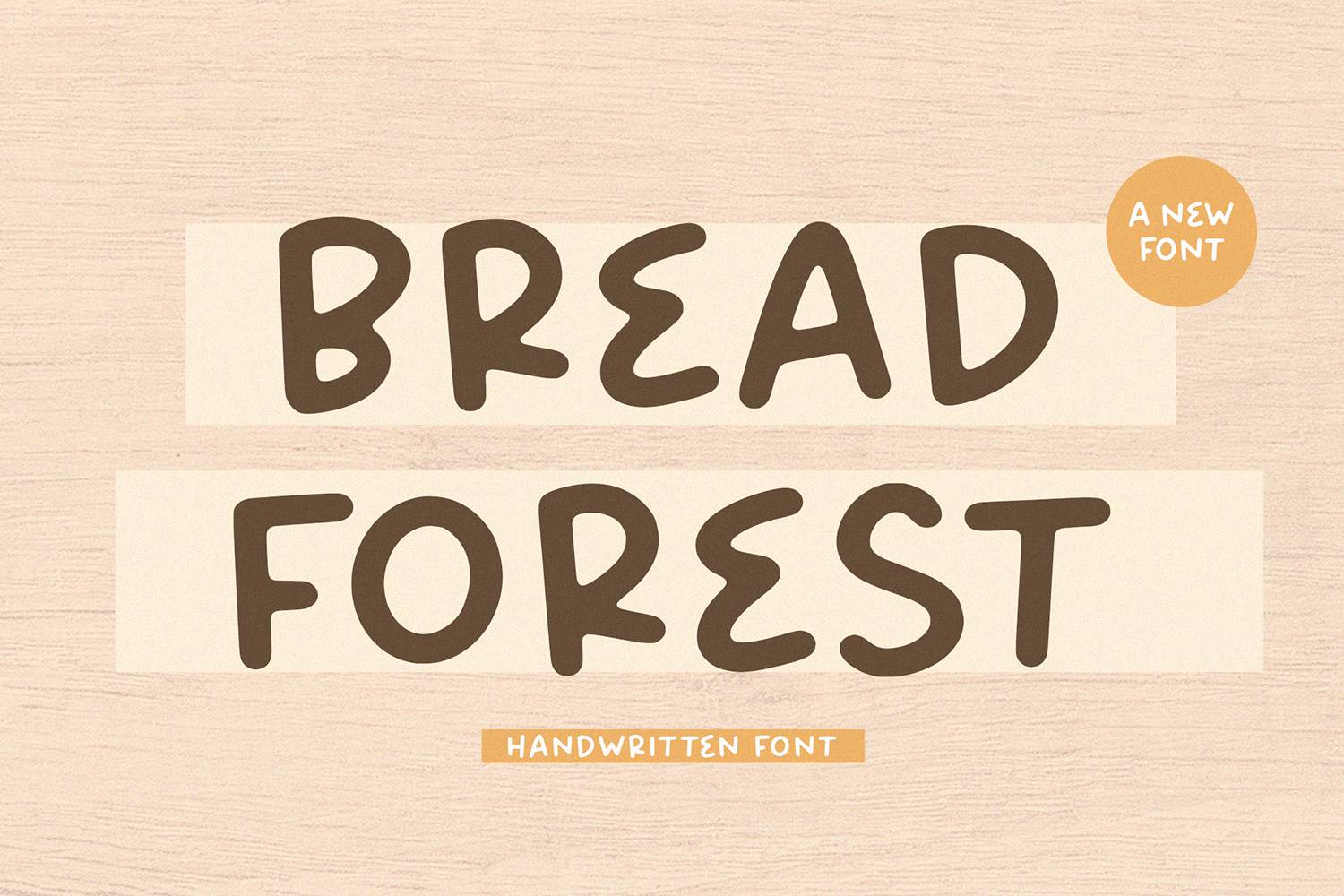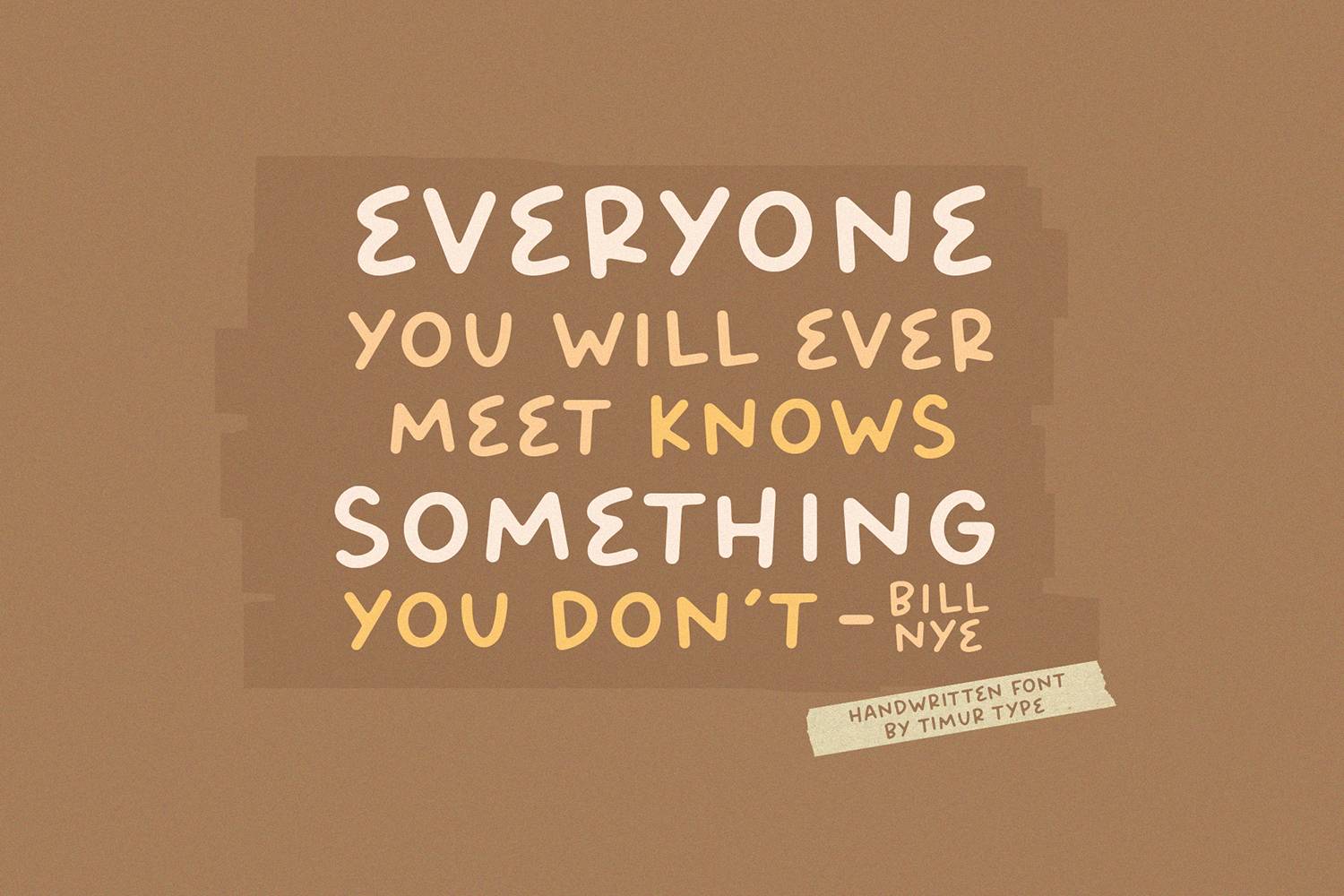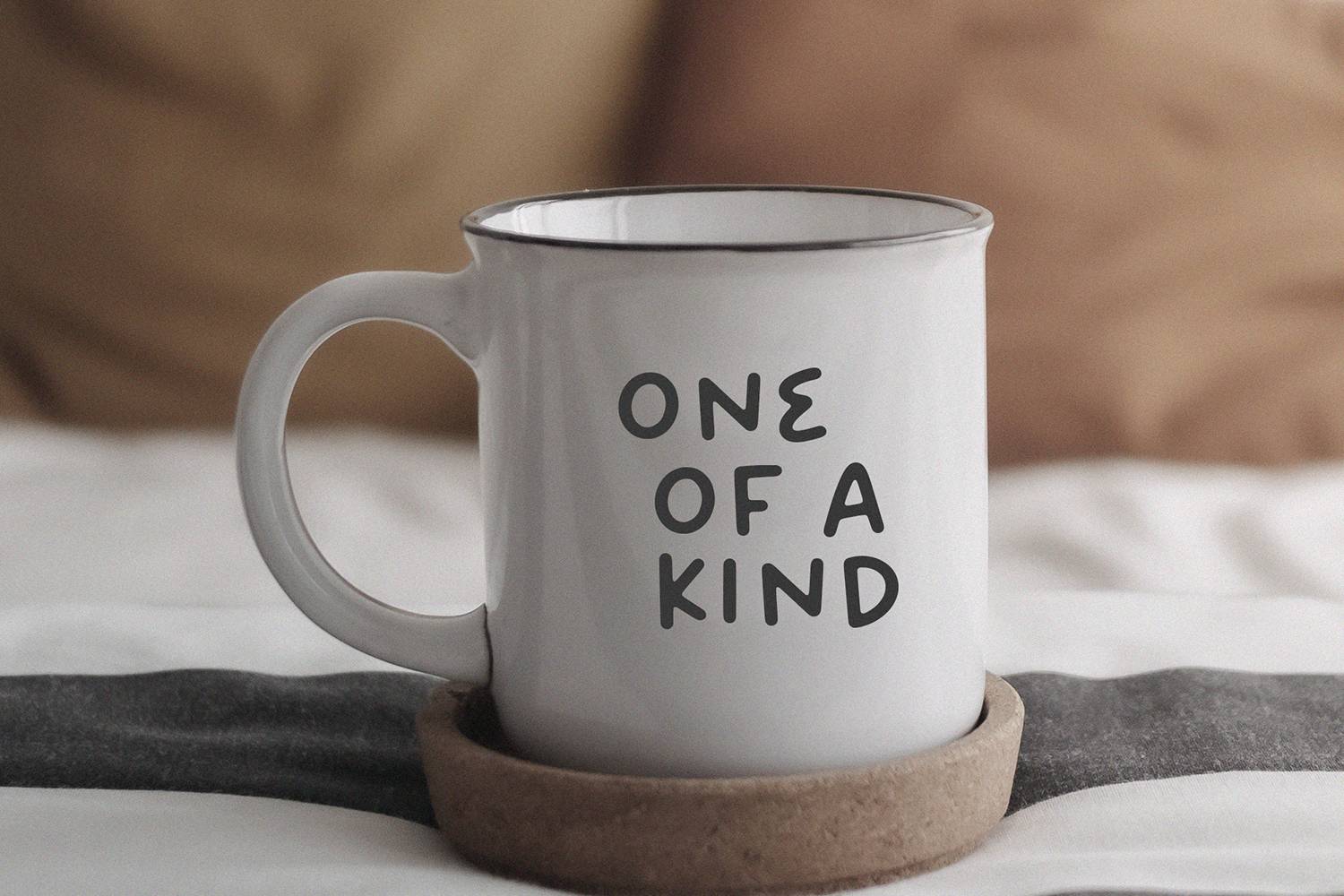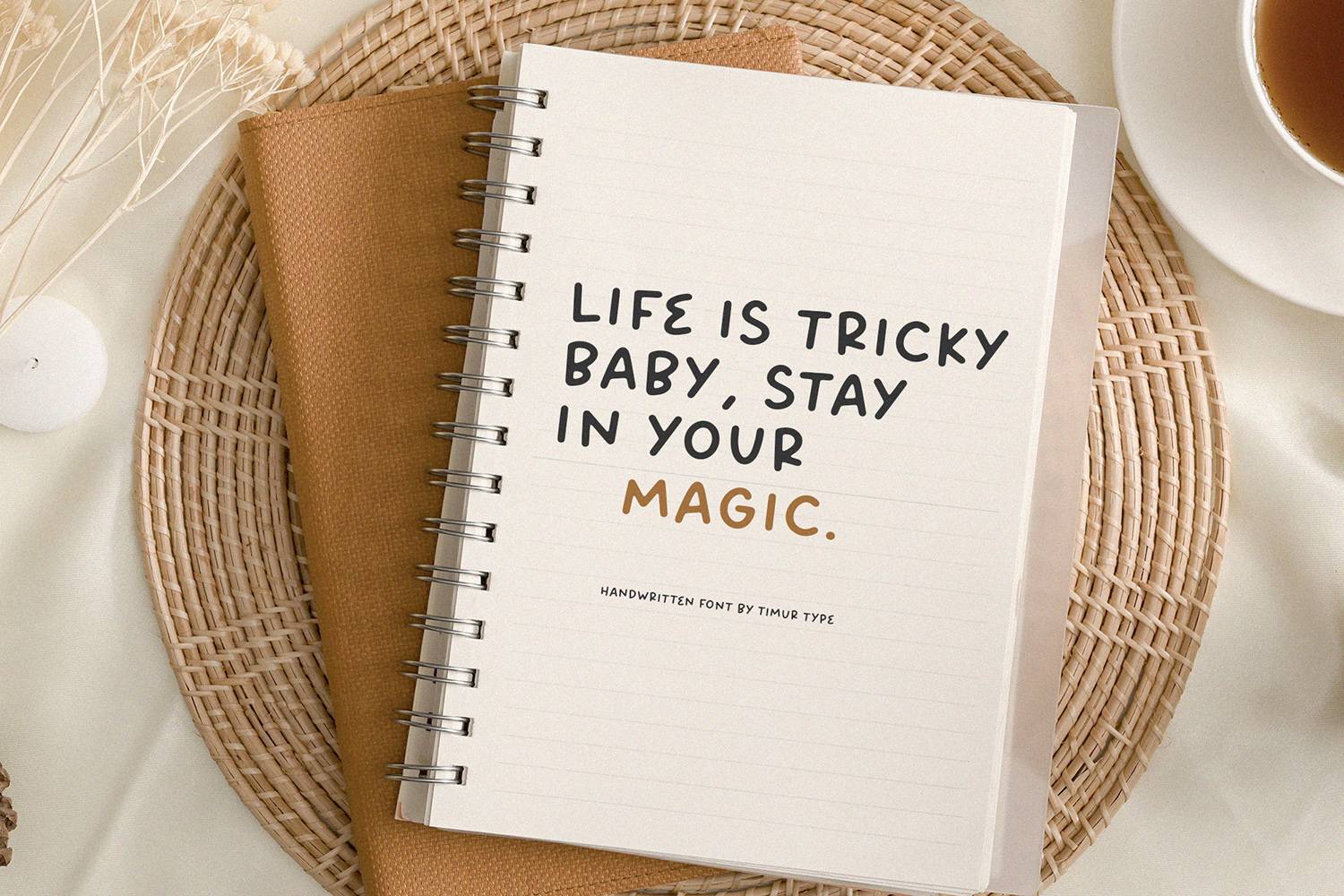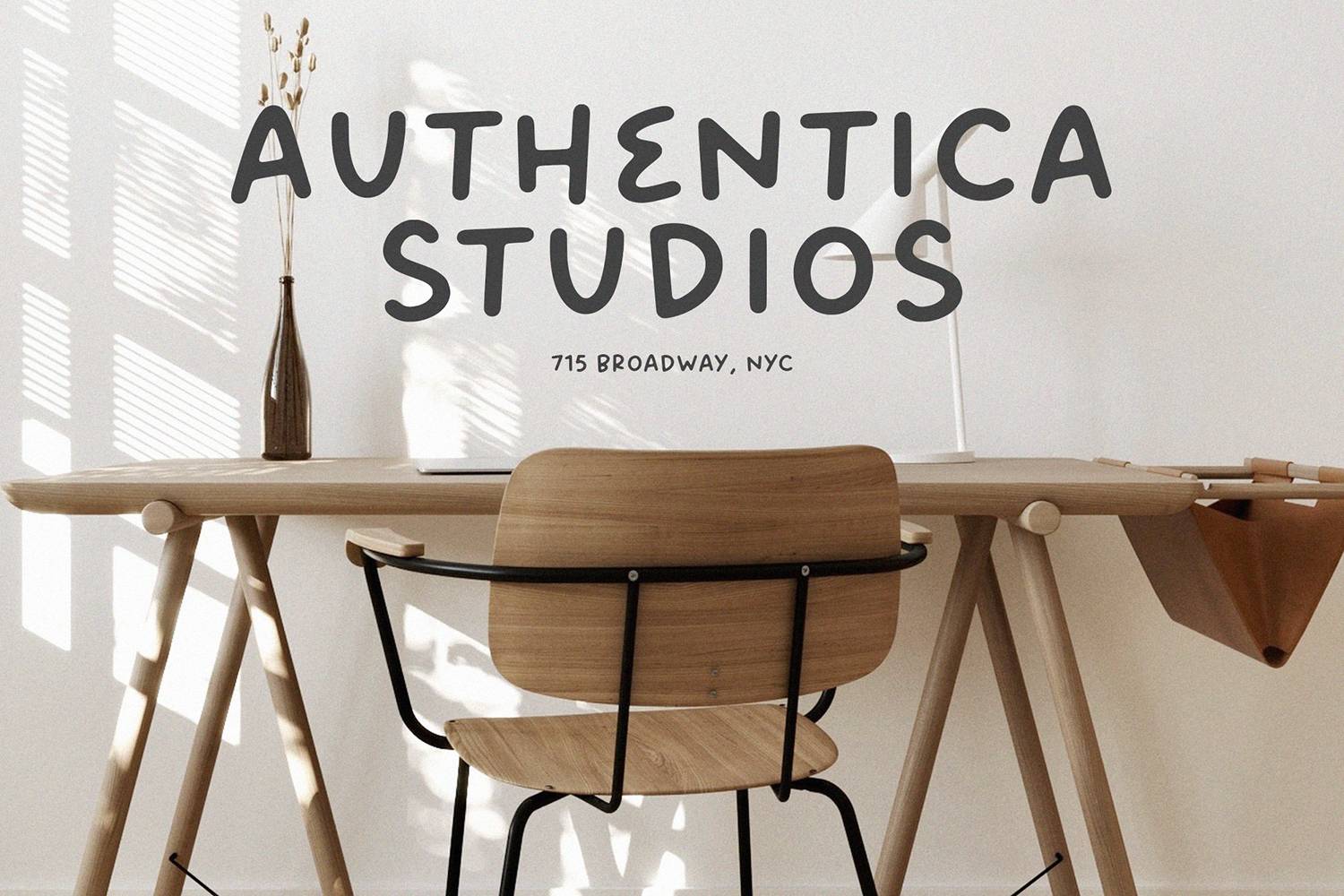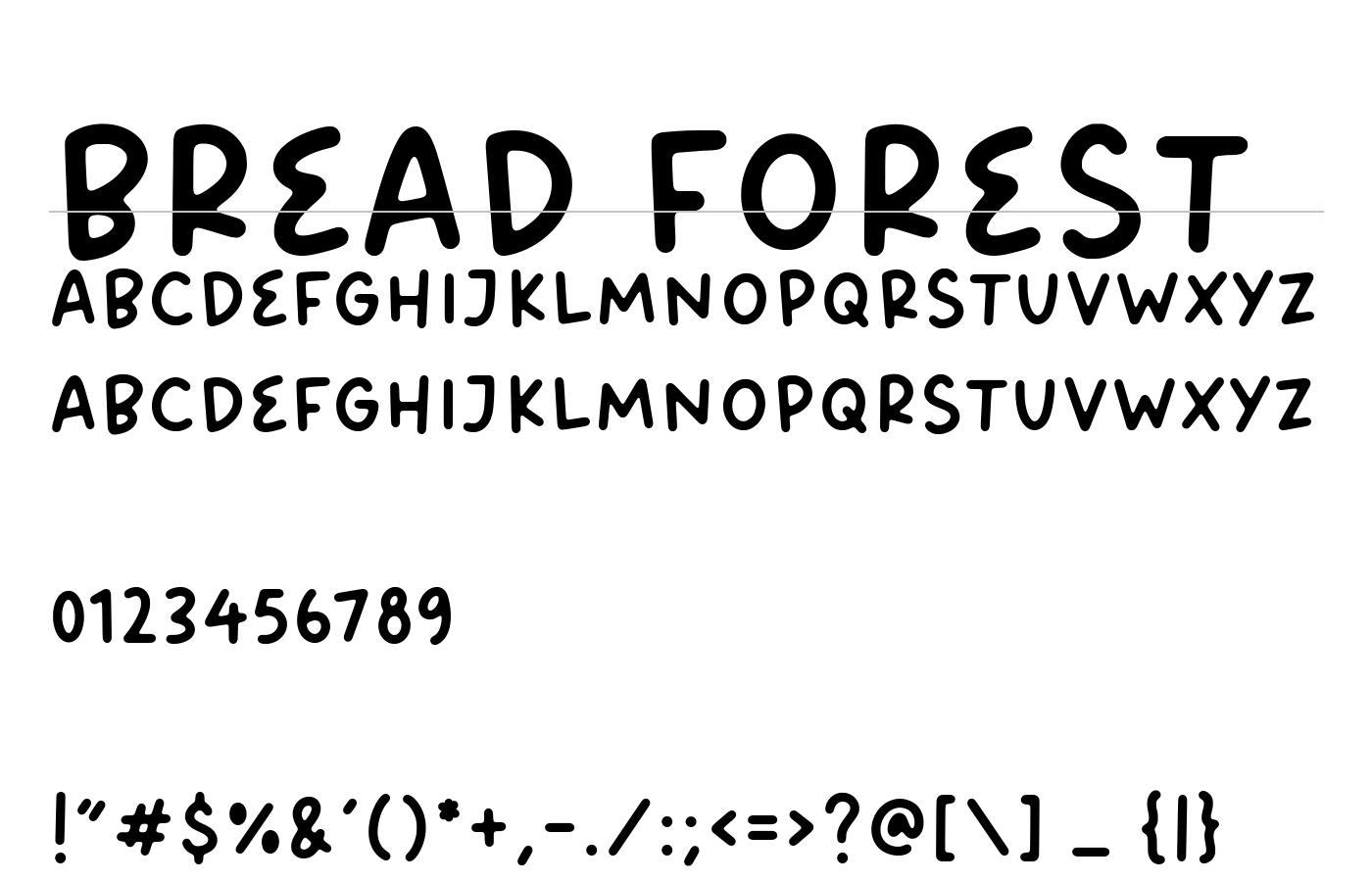
Bread Forest is a playful, rounded sans serif font with a hand-drawn feel, characterized by its casual, slightly uneven letter shapes that convey warmth and friendliness. Its moderate weight and open spacing make it highly legible, perfect for inviting and informal uses such as children’s books, greeting cards, or creative branding where a fun and approachable tone is desired. This font adds personality and charm, making it ideal for projects that want to feel personal and cheerful without sacrificing clarity.
Bread Forest Font
About Bread Forest Font